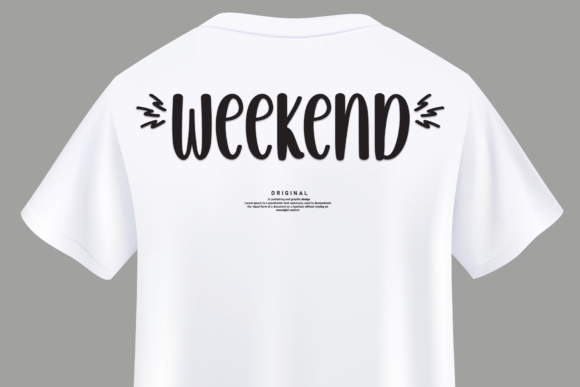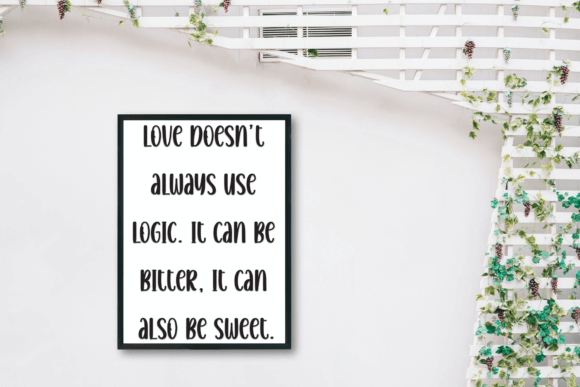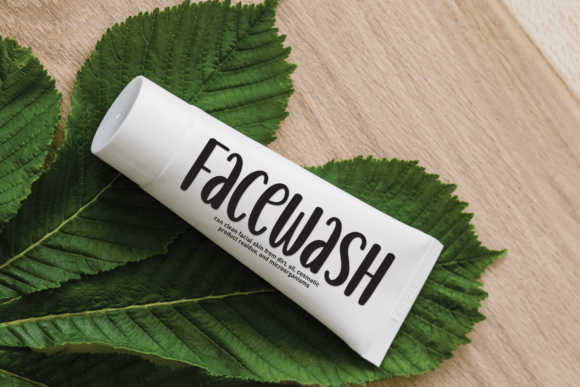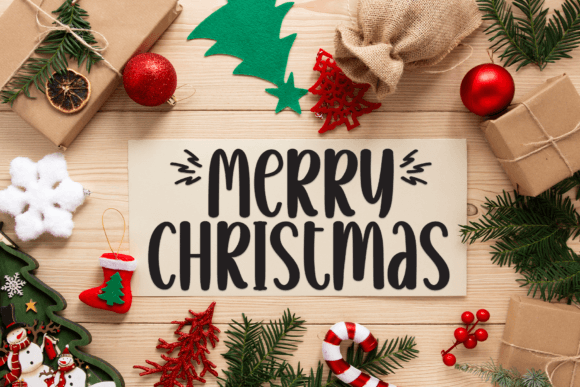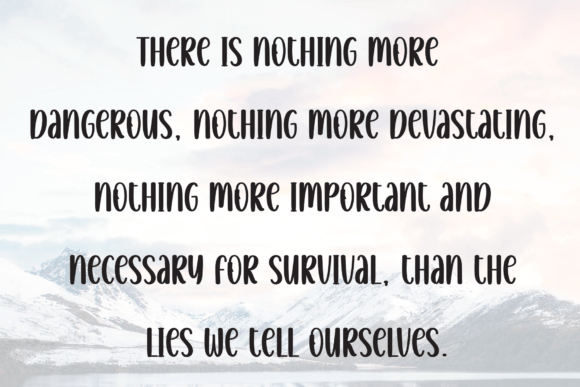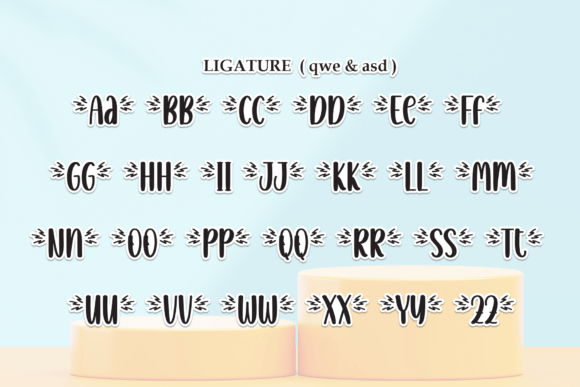
Introduction to Flashsale Font
Have you ever been brainstorming ideas for a new project and suddenly, a burst of creativity hits you? You envision a beautiful, handcrafted design that stands out from the crowd. For designers like you, finding the perfect font can be the game-changer that brings your creative vision to life. That’s where the Flashsale Font comes in – a stunning, high-quality handwritten font that’s sure to elevate your design project.
With its unique and beautiful touch, Flashsale Font is the perfect choice for creating eye-catching logos, branding, and quotes. Its versatility makes it an ideal design resource for any creative project. Whether you’re working on a free download or a paid design, this font is sure to add a professional touch to your work.
As a valuable asset for designers, Flashsale Font offers a transparent background that allows you to customize it to fit your design needs. With its timeless appeal, this font is sure to be a favorite among designers for years to come.
Key Features of Flashsale Font
• High-quality, bold font design ideal for creative projects and promotional materials.
• Transparent background, making it easy to use with any design element or image.
• Includes a wide range of characters, including uppercase and lowercase letters, numbers, and punctuation marks.
• Designed with a high resolution of 300 DPI, ensuring crisp and clear display in various print and digital applications.
• Perfect for use in flash sales, promotions, and other creative projects where a bold and eye-catching font is required.
Honest Review: Flashsale Font
As a designer, I’m always on the lookout for high-quality design resources to elevate my creative projects. Recently, I stumbled upon Flashsale Font, a free download that caught my attention. Here’s my honest review:
• ✨ Unique and modern design aesthetic that’s perfect for contemporary projects.
• ✨ High-quality typography that’s clear and easy to read.
• ✨ Transparent background that makes it easy to layer and design with.
• ⚠️ Limited font weights and styles, which might limit its versatility.
Overall, I’m impressed with Flashsale Font’s potential as a design resource. While it has its limitations, it’s a great option for small-scale creative projects or personal designs. If you’re looking for a free font with a unique aesthetic, Flashsale Font is definitely worth checking out.
Tips for Getting the Most Out of Flashsale Font
Use Flashsale Font in combination with other design resources to create a unique and eye-catching design. Experiment with different font sizes, colors, and styles to achieve a high-quality look. Don’t forget to save your work with a transparent background for a clean and professional appearance.
Flashsale Font is ideal for use in creative projects such as flyers, brochures, posters, and social media graphics. It’s also perfect for designing presentations, documents, and websites. Use it to add a touch of elegance and sophistication to your design work.